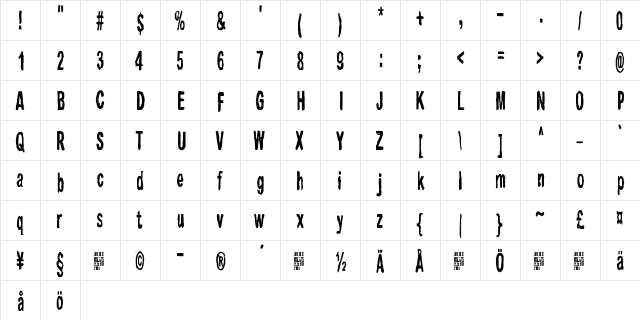
Raparperitaivas Regular
Design Context for Raparperitaivas Typeface
Raparperitaivas offers clean, dependable letterforms without strong stylistic allegiance, making it a practical choice for designers who need flexibility.